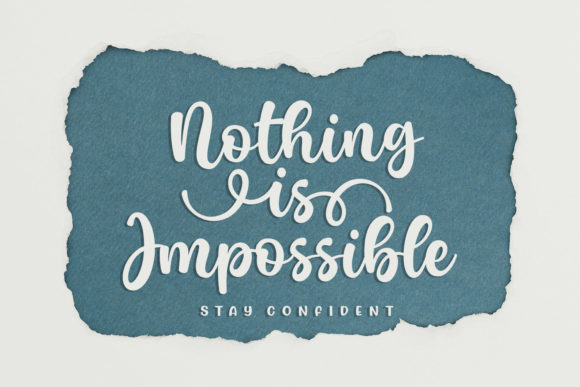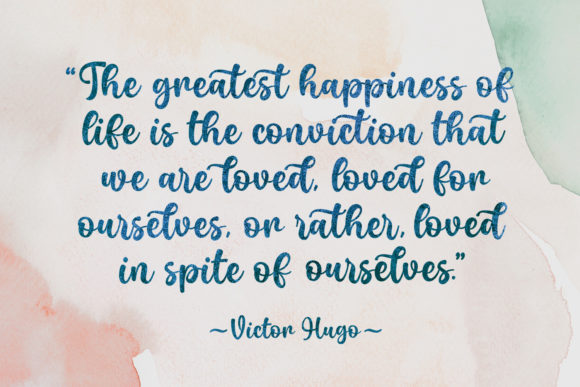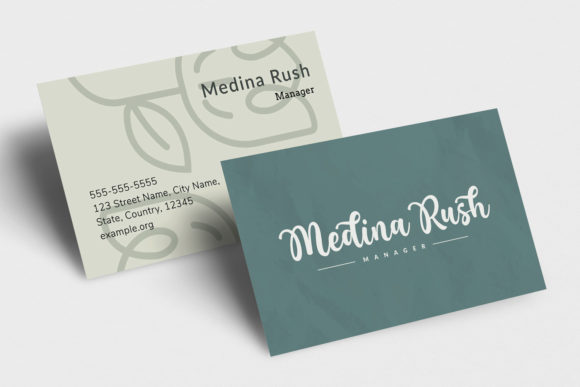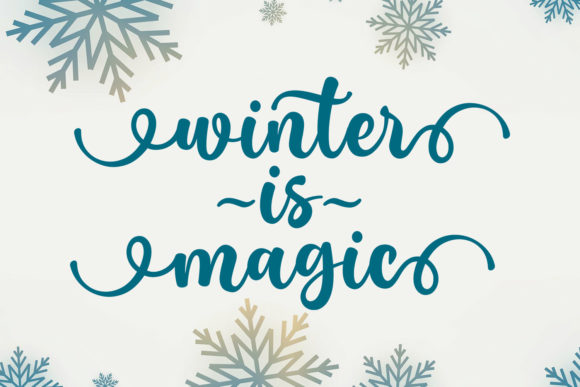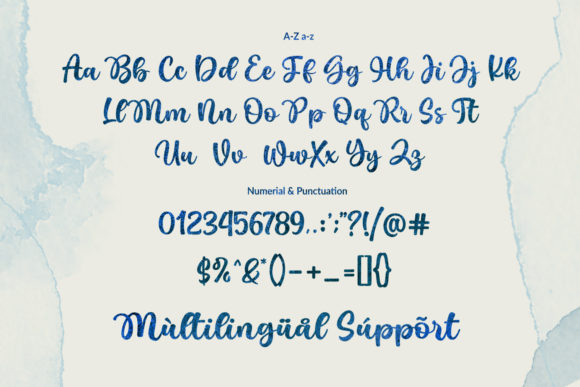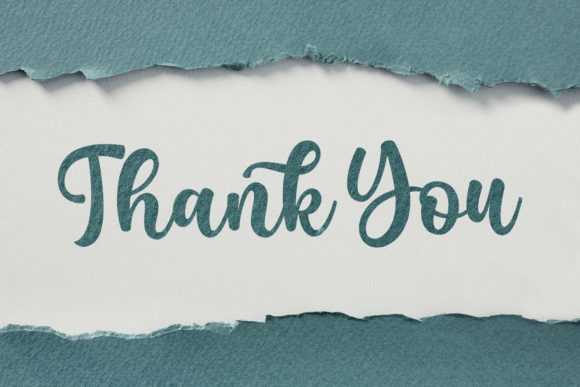
About Wonderful Today Font
Wonderful Today is a lovely and delicate script font that exudes elegance and class. This font was particularly crafted for those who need a beautiful and refreshing look to their designs.